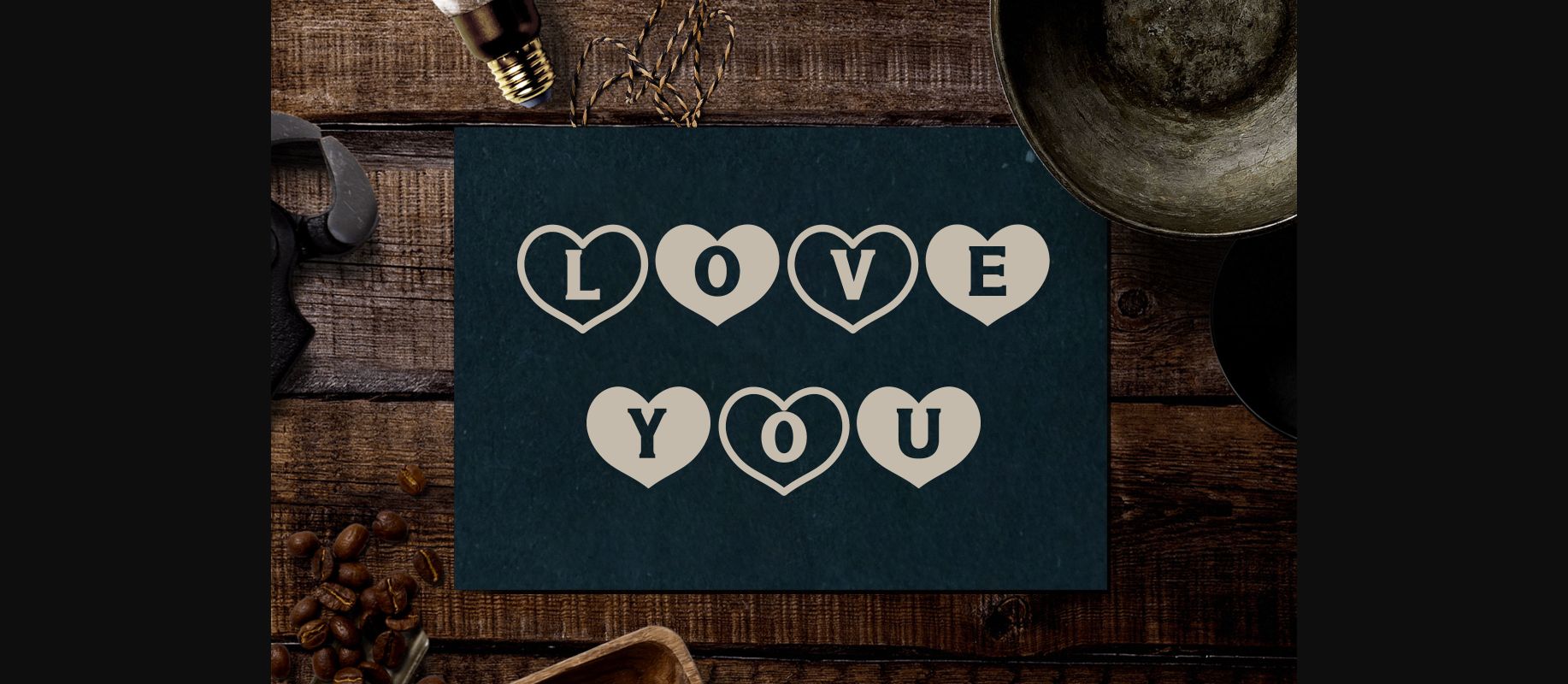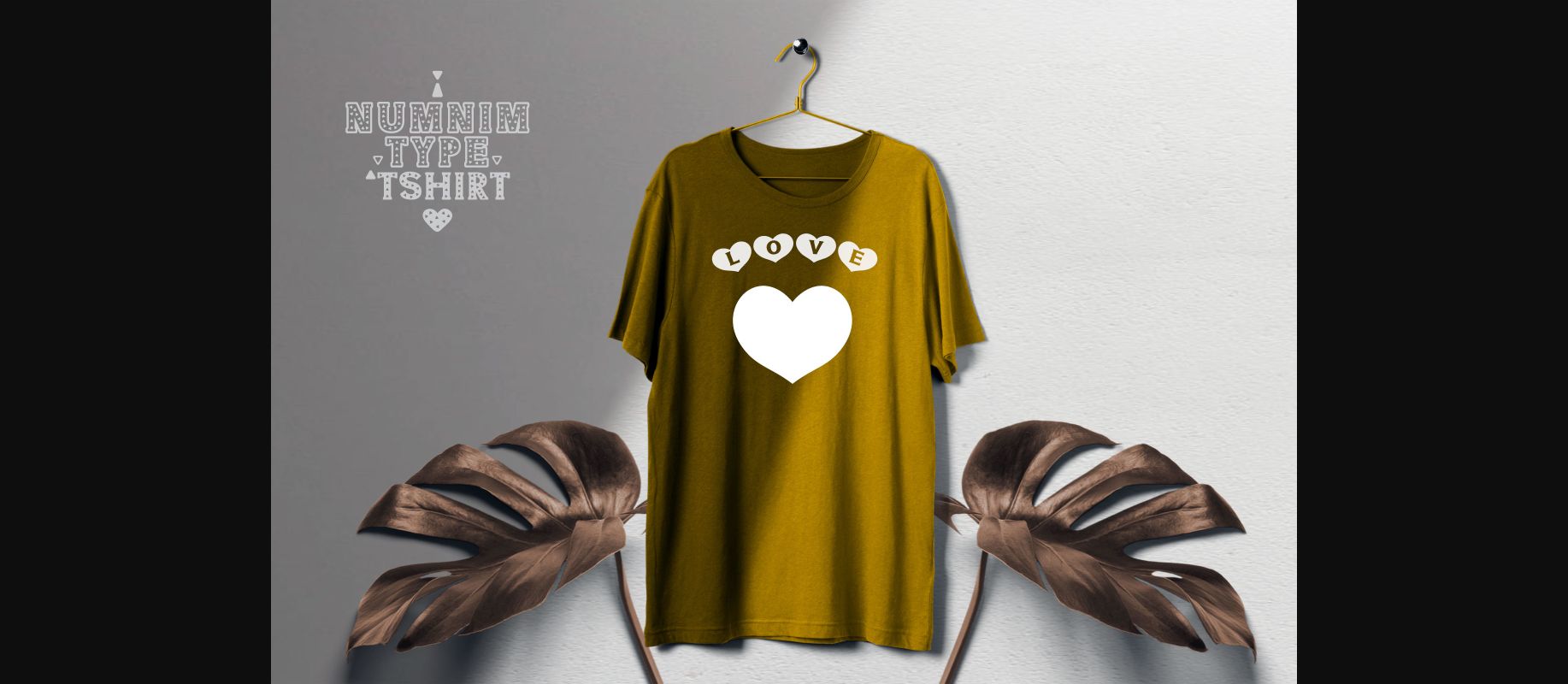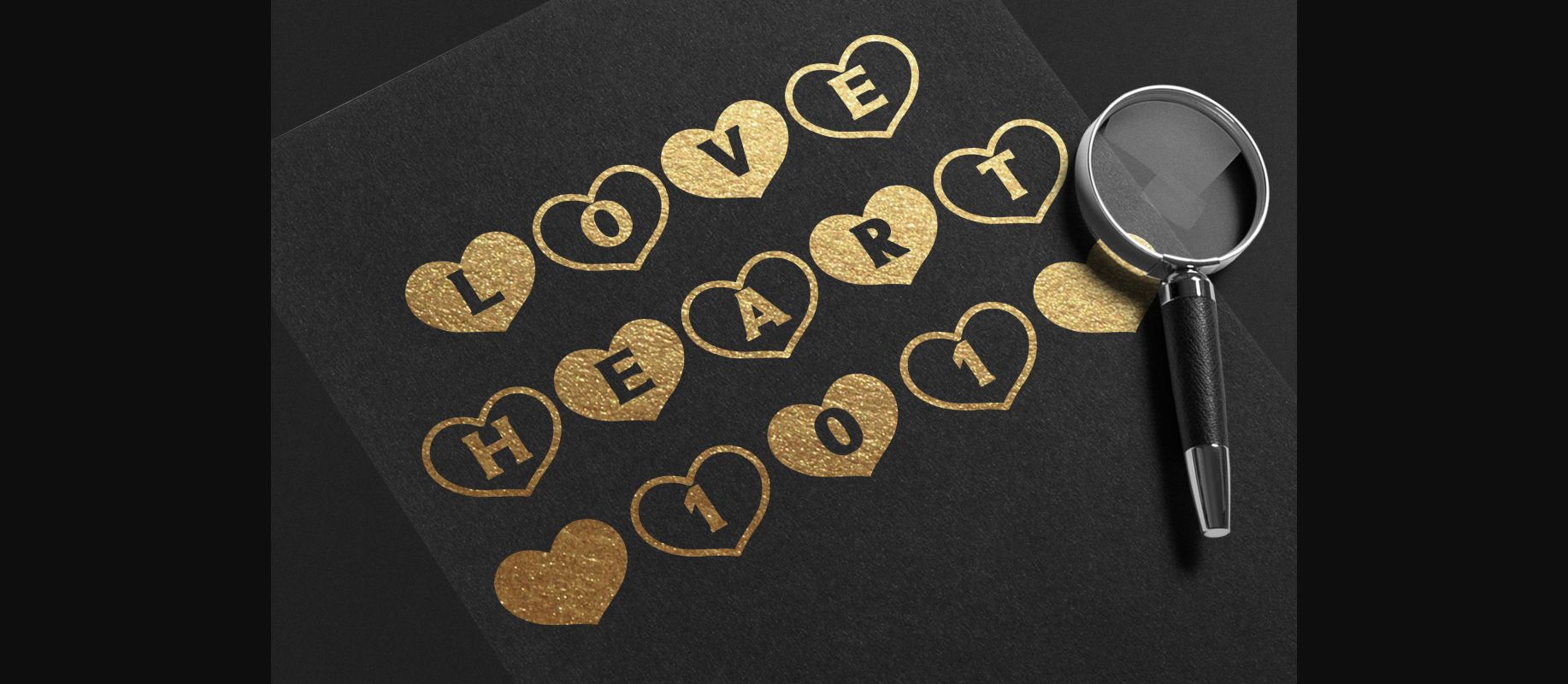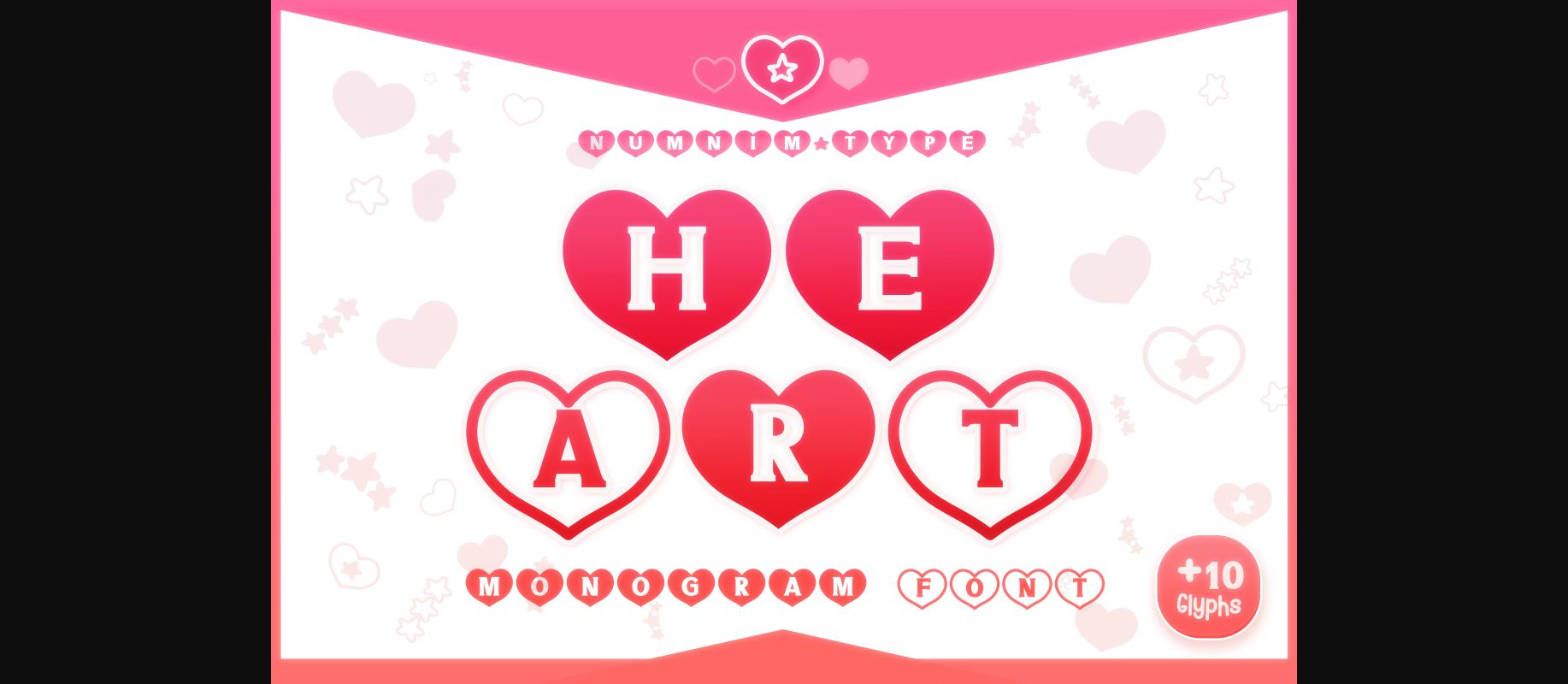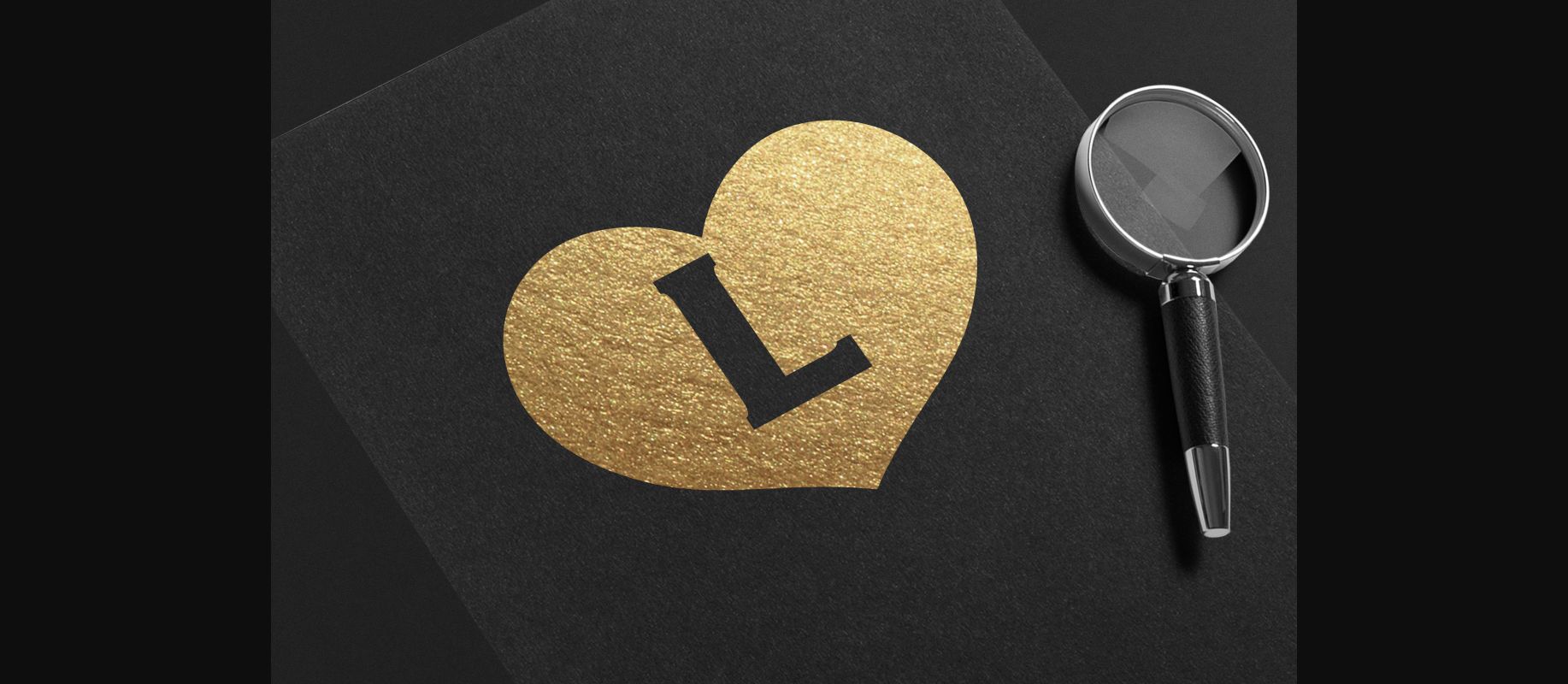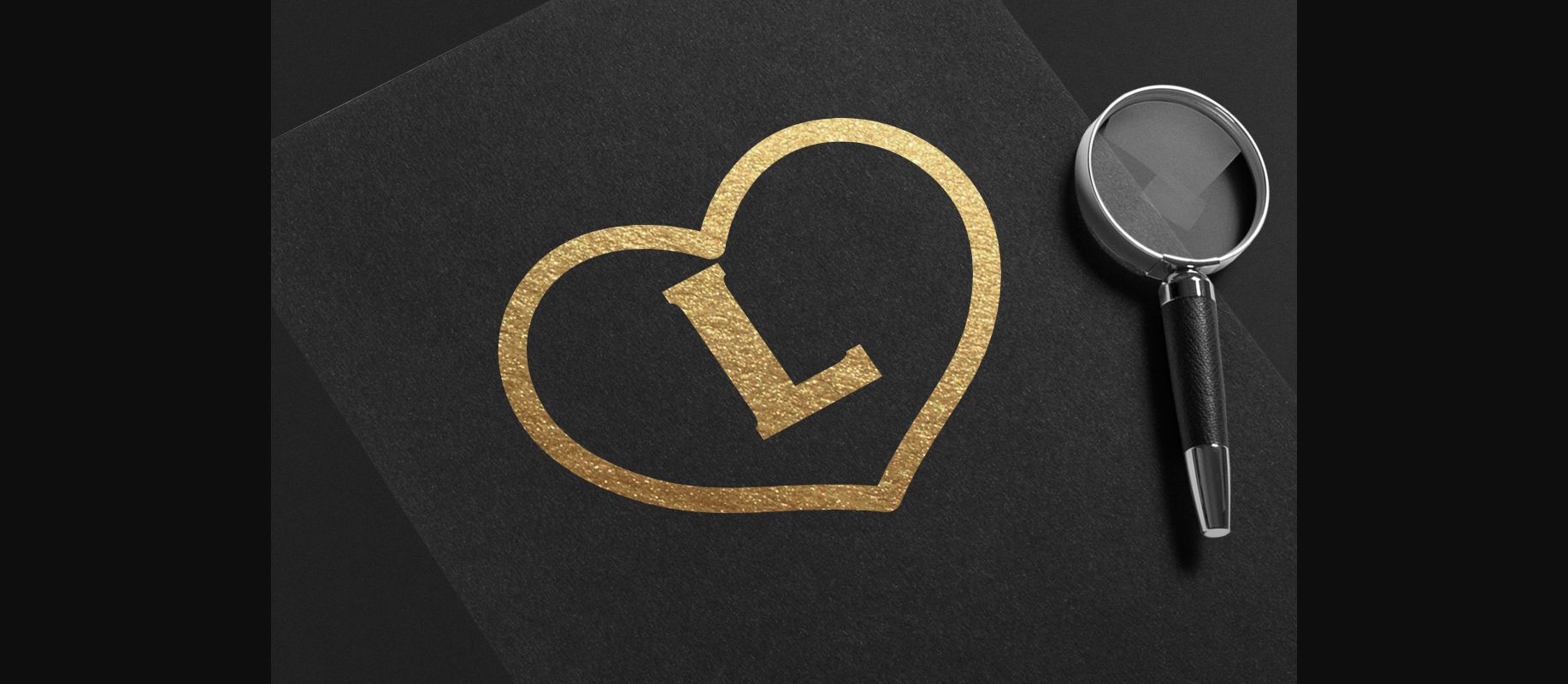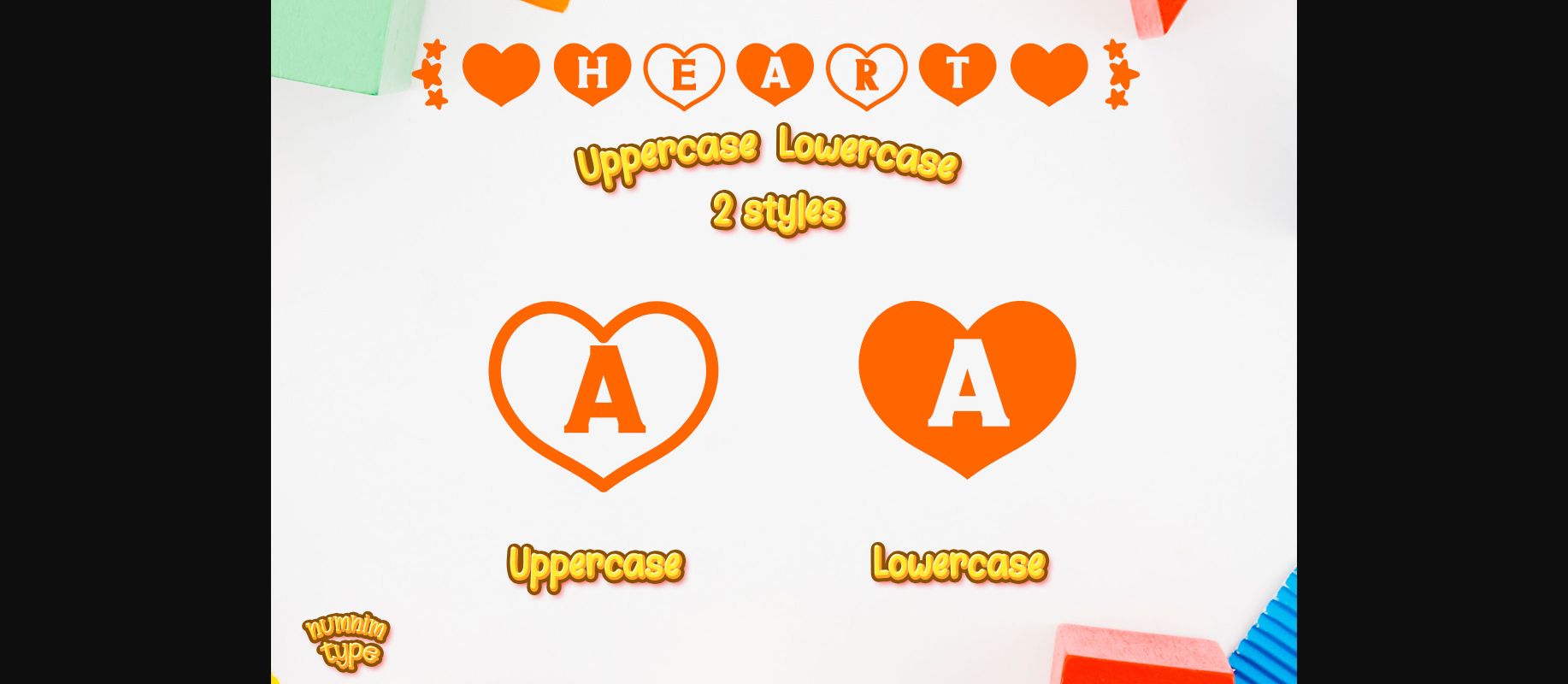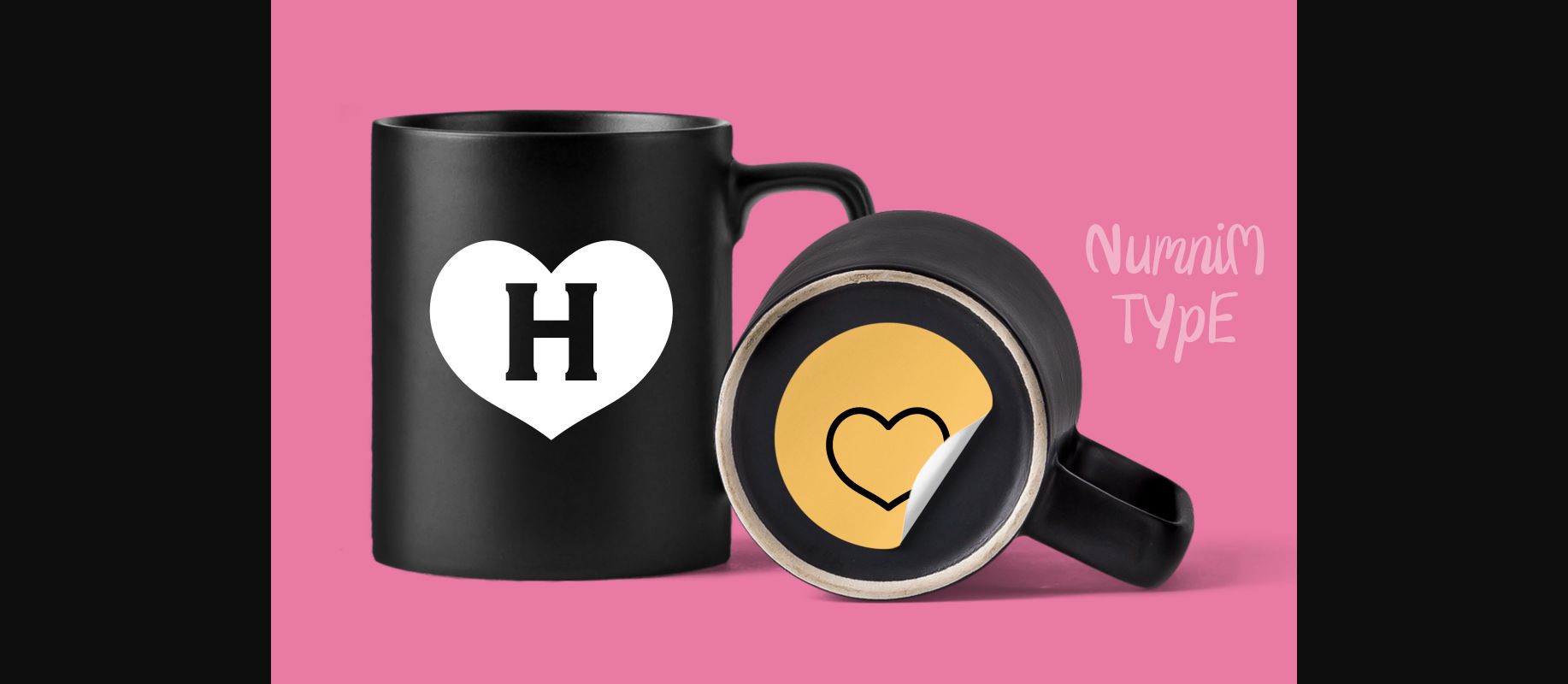
Heart Font
About Heart Font
Heart is a cool, glamorous and romantic decorative font. It is PUA encoded which means you can access all of the amazing glyphs and ligatures with ease!